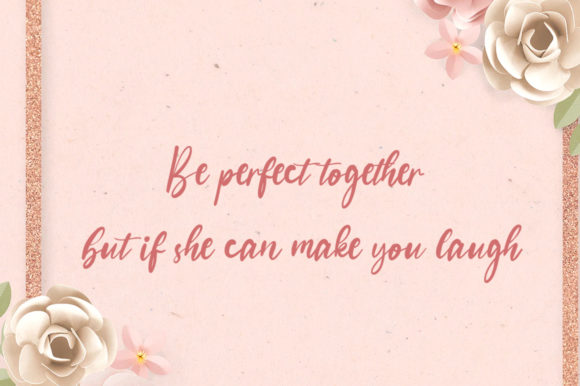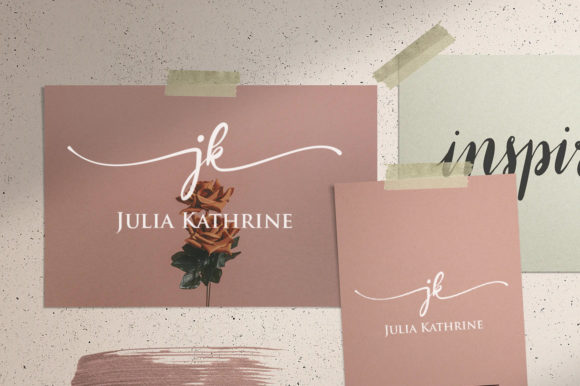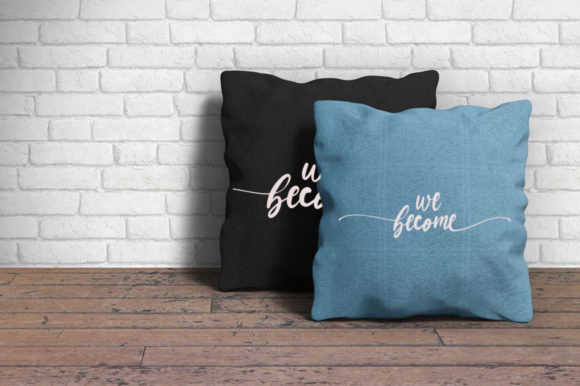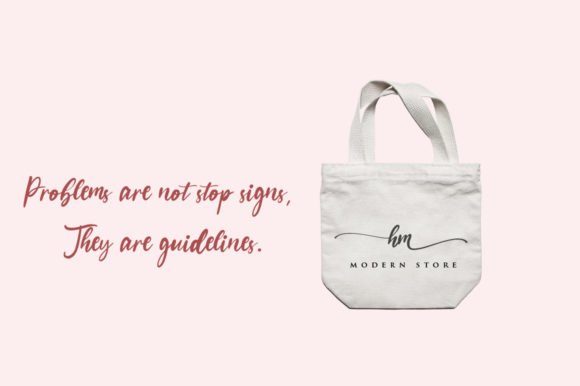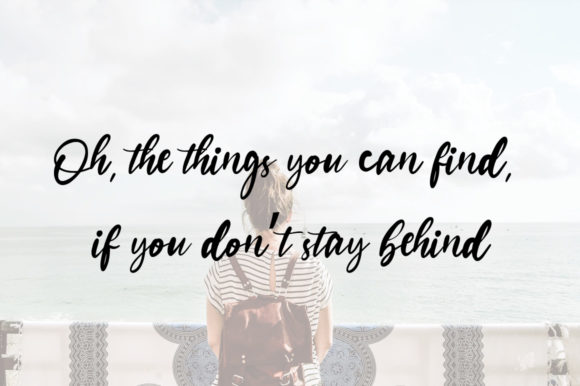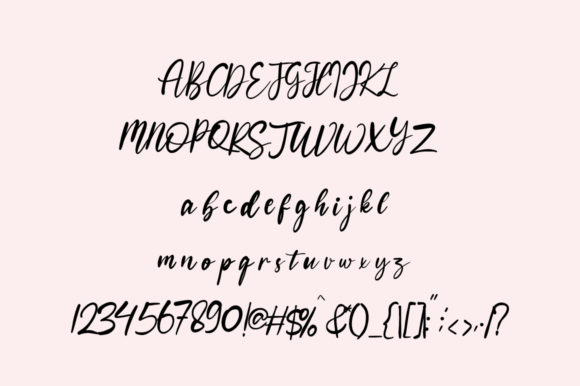
Discover the Magic of Bohemian Font
Have you ever sat down with a cup of coffee, a blank page in front of you, and let your creativity flow? You’re not just brainstorming ideas – you’re crafting a world where words become art, and every sentence is a masterpiece. It’s in these moments that we’re reminded of the power of typography in design.
That’s where the Bohemian Font comes in – a magical handwritten font that adds a touch of elegance to any project. With its whimsical flair and sophistication, it’s perfect for branding, headings, wedding designs, and so much more. Whether you’re a seasoned designer or just starting out, the Bohemian Font is an invaluable tool that will elevate your designs to new heights.
Key Features of Bohemian Font
- Font Family: Bohemian Font is a script font family that includes multiple weights and styles.
- Unique Characteristics: The font features a whimsical and artistic design with flowing lines and irregular letterforms, making it perfect for creative and design-driven applications.
Designer Review: Bohemian Font
At first glance, the Bohemian Font ✨ catches the eye with its elegant, hand-drawn style. The font’s flowing lines and subtle flair make it perfect for creative projects that need a touch of whimsy. It’s especially well-suited for typography-heavy designs, such as posters, flyers, and invitations.
- The font’s irregularities and imperfections add character and visual interest to a design.
- Its warm, organic feel makes it an excellent choice for designs that need to evoke a sense of freedom and adventure.
- The font’s flexibility in terms of size and spacing allows for creative experimentation and customization.
However, there are some limitations to consider ⚠️:
- The font may not be suitable for designs that require precision and uniformity, such as corporate materials or technical documents.
- The font’s irregularities can sometimes make it difficult to read, especially in small sizes or when used extensively.
Overall, the Bohemian Font is a beautiful and versatile choice for designers who want to add a touch of personality to their projects. While it may not be suitable for every design, it’s an excellent option for creative and artistic projects where whimsy and flair are essential.
Getting the Most Out of the Bohemian Font
To get the most out of the Bohemian Font, experiment with different font sizes, colors, and styles to create unique and visually appealing designs.
The Bohemian Font is commonly used in creative and artistic designs, such as:
- Artistic quotes and posters
- Magazine and book covers